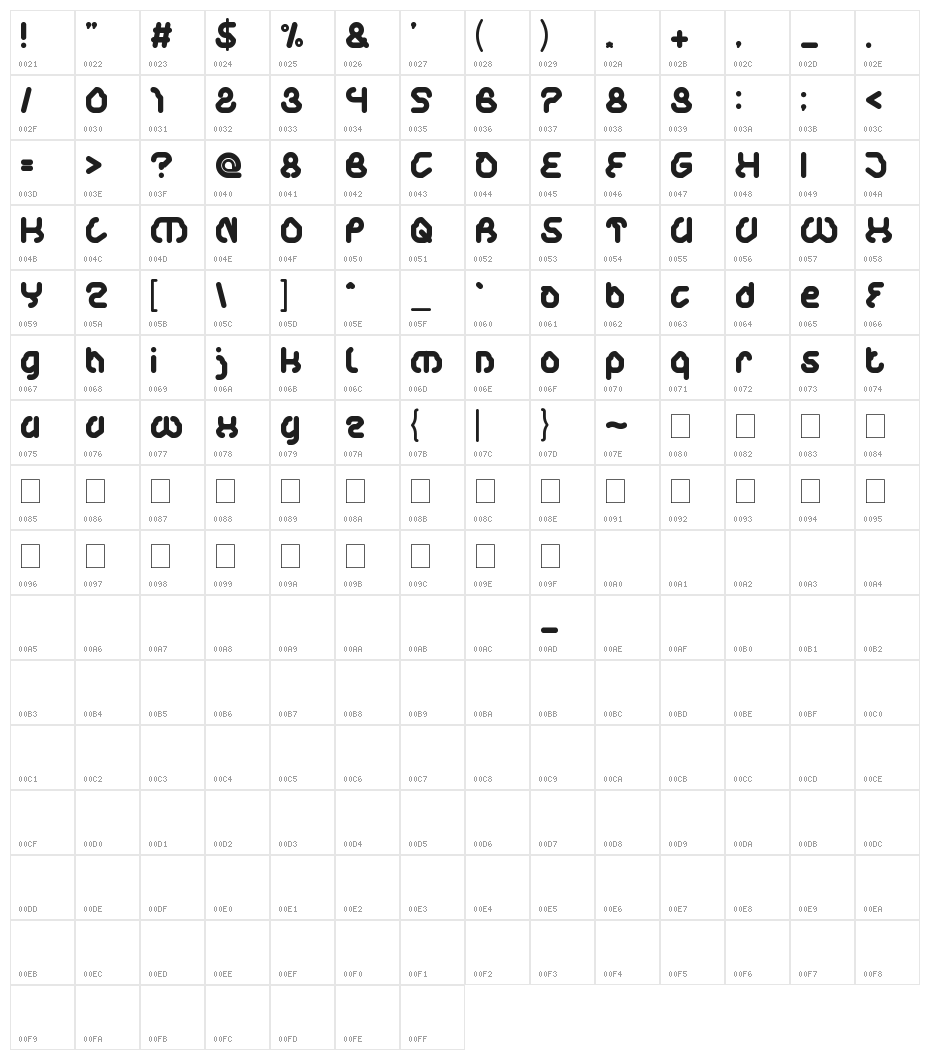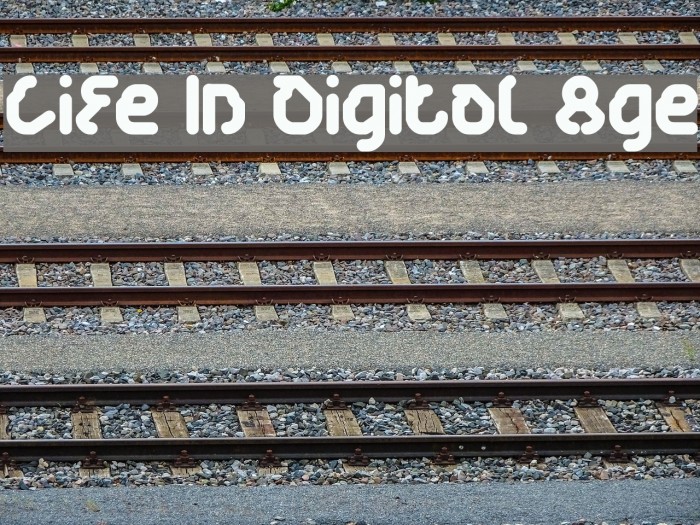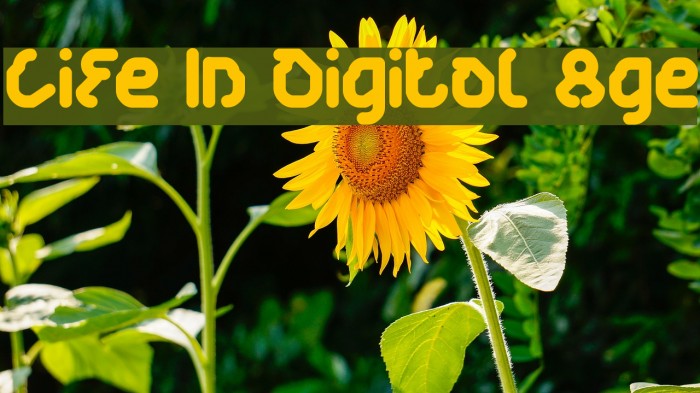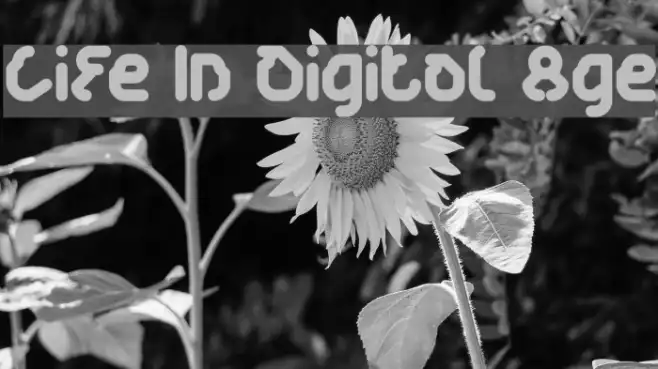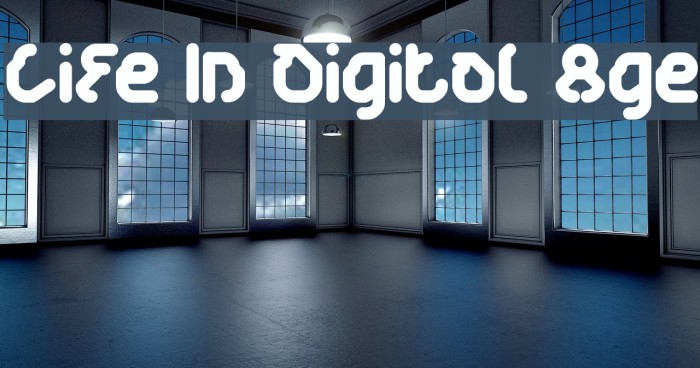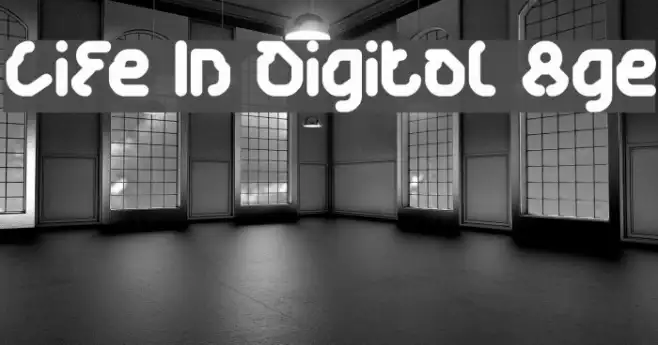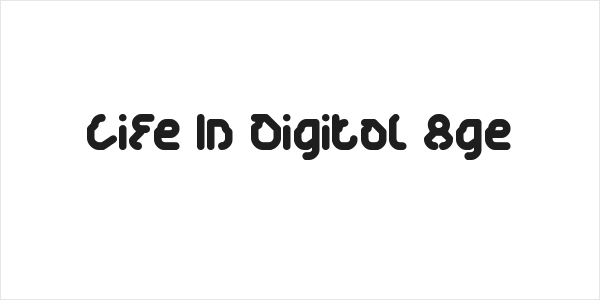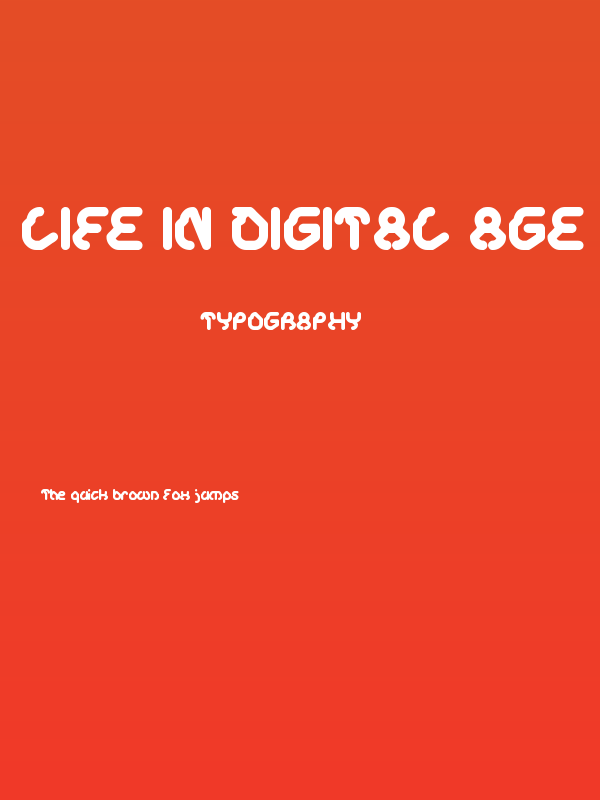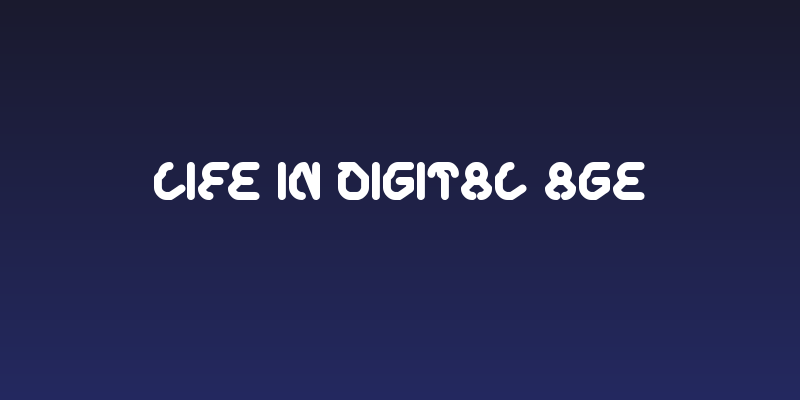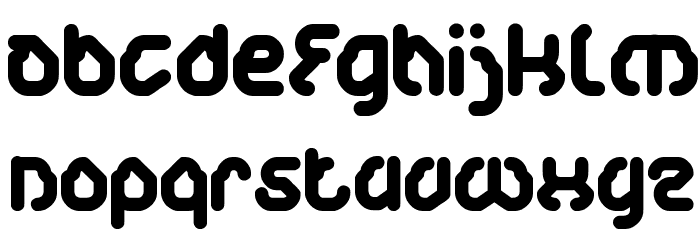
Life In Digital Age Font
Life In Digital Age Description
This font features a bold, rounded style with a futuristic and digital aesthetic. The characters are constructed with thick, uniform strokes that create a sense of solidity and modernity. The rounded edges and consistent stroke width give it a cohesive and smooth appearance, making it stand out in digital and tech-related contexts. The font maintains a playful yet structured look, suitable for capturing attention while remaining legible. Its unique design elements make it ideal for projects that require a modern and innovative touch.
| Proposed Projects | Ideal for tech branding, digital media, video game titles, and modern advertising campaigns. |